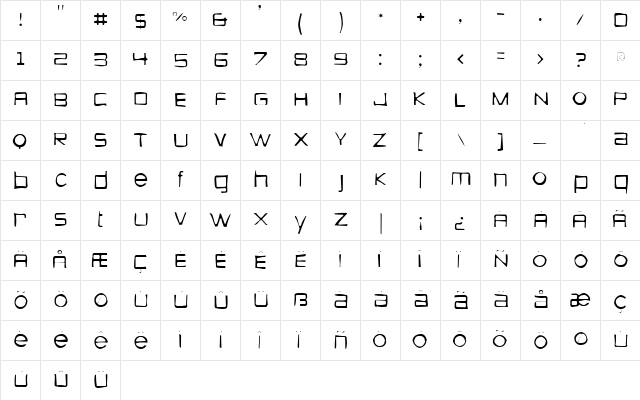
Zeroes Gaunt Regular Font Preview
Zeroes Gaunt Regular
Design Context for Zeroes Gaunt Typeface
Zeroes Gaunt is a composed and adaptable typeface that performs quietly and consistently across a wide range of design contexts.
Pro Tip: Use Zeroes Gaunt in both headline and body roles to test its range before committing to a single application.